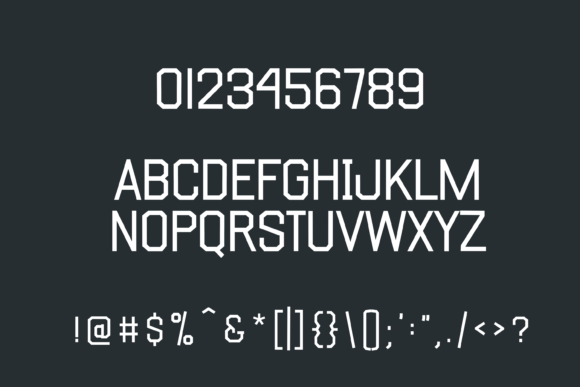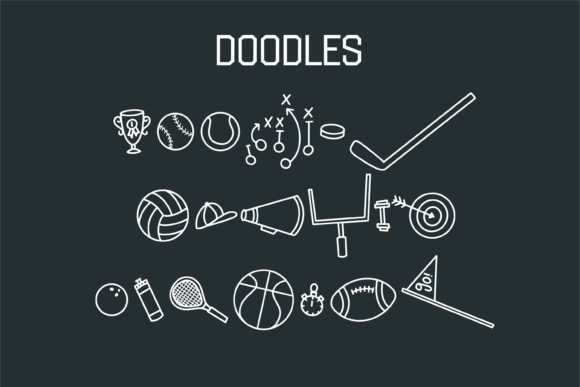
Unleash the Spirit of the Game with Go Team Font
Are you tired of using the same old fonts for your sports-themed designs? Look no further! Introducing Go Team Font, a dynamic typeface that’s perfect for capturing the energy and excitement of sports. Whether you’re creating team merchandise, banners, or victory posters, this font is sure to be a winning choice.
The Perfect Font for Sports Enthusiasts
Go Team Font is specifically designed to evoke the spirit of the game. Its sharp, bold lines and playful doodles make it a unique and eye-catching addition to any athletic project. The font’s energetic and lively feel is sure to get your audience pumped up and ready for action.
Key Features of Go Team Font
- Bold and Sharp Lines: Go Team Font features bold and sharp lines that give it a strong and confident look.
- Playful Doodles: The font’s playful doodles add a touch of whimsy and fun to your designs.
- Highly Versatile: Go Team Font is perfect for a wide range of athletic projects, from team merchandise to banners and victory posters.
- Easily Readable: Despite its bold and playful design, Go Team Font is easy to read, even at smaller sizes.
Uses for Go Team Font
Go Team Font is perfect for a wide range of sports-themed designs, including:
- Team Merchandise: Create eye-catching t-shirts, hats, and other team gear with Go Team Font.
- Banners and Posters: Use Go Team Font to create bold and attention-grabbing banners and posters for sports events.
- Victory Posters: Celebrate your team’s wins with custom victory posters featuring Go Team Font.
- Social Media Graphics: Add some game-day excitement to your social media graphics with Go Team Font.
Why Choose Go Team Font?
There are many fonts to choose from, but Go Team Font stands out from the rest. Here are just a few reasons why:
- Unique Design: Go Team Font’s unique blend of bold lines and playful doodles sets it apart from other fonts.
- High-Quality Design: Go Team Font is designed to high standards, ensuring that your designs look professional and polished.
Get Ready to Add Some Game-Day Excitement to Your Designs
In conclusion, Go Team Font is a dynamic and energetic typeface that’s perfect for capturing the spirit of sports. With its bold lines, playful doodles, and highly versatile design, this font is sure to be a winning choice for any athletic project. Whether you’re a designer or a crafter, Go Team Font is a great addition to your toolkit. So why wait? Get your hands on Go Team Font today and start creating your own game-day designs!